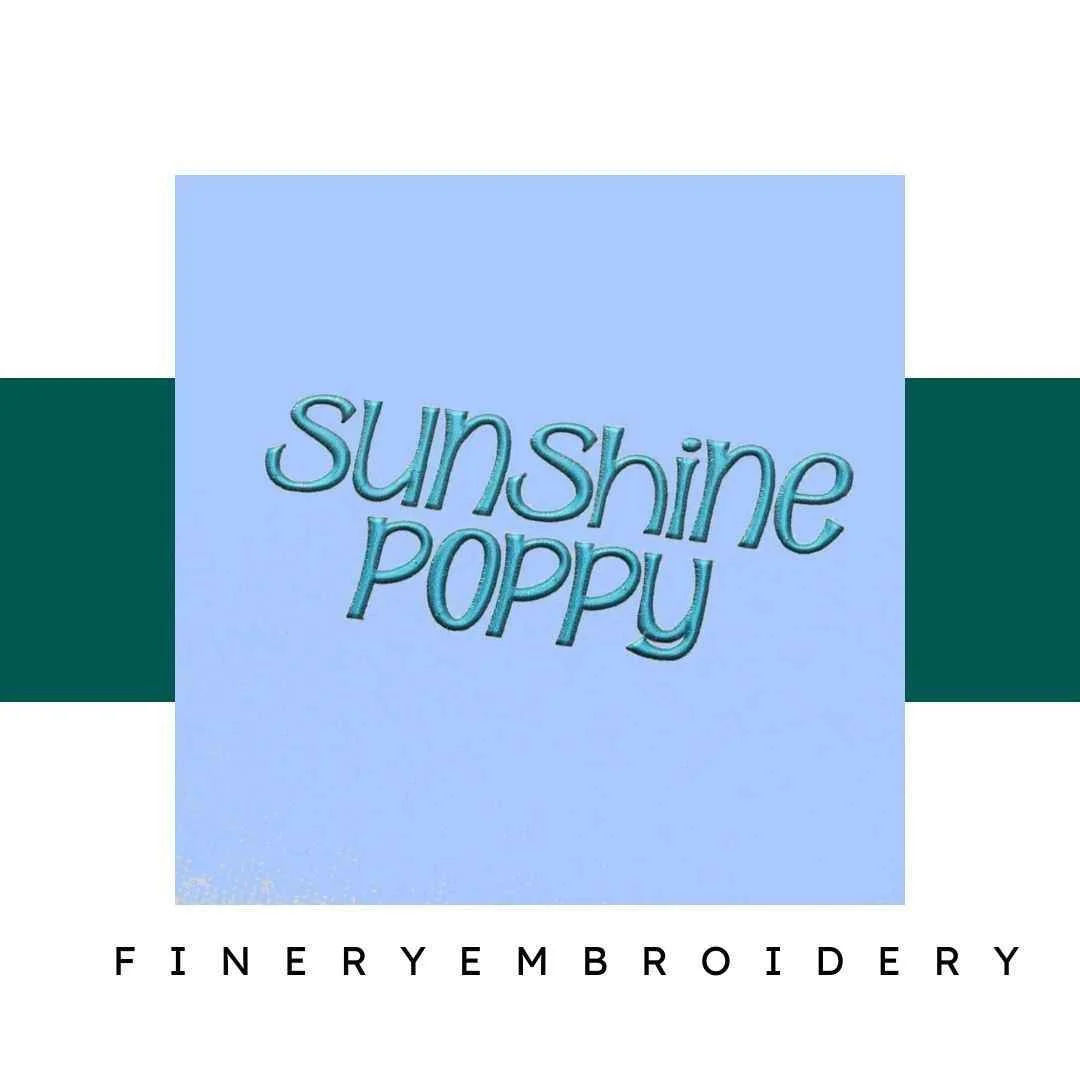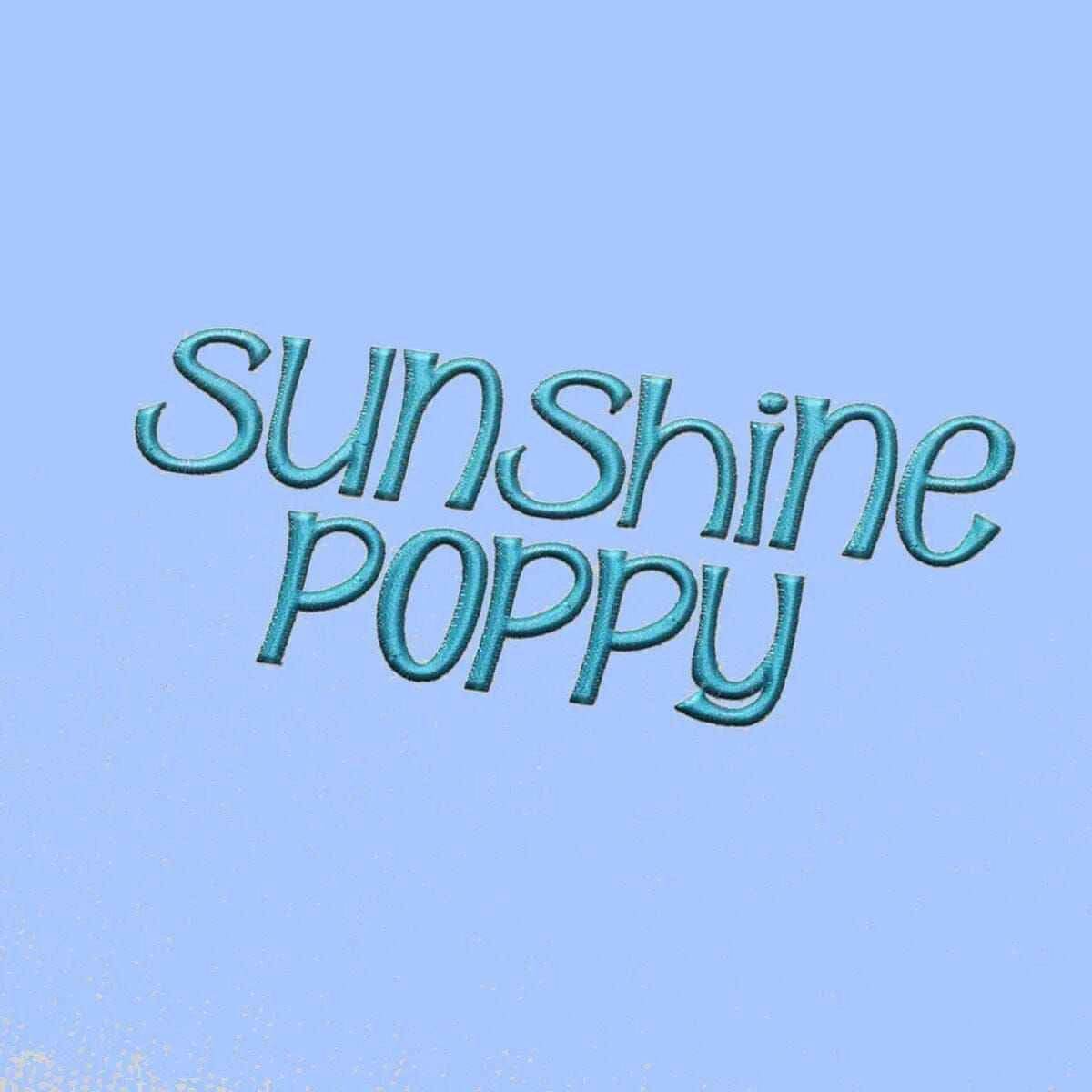
Sunshine Poppy Embroidery alphabet Font Set
Ignite your creativity with the Sunshine Poppy Embroidery Alphabet Font Set, where elegance meets functionality in every letter!
Welcome to the Sunshine Poppy Embroidery Alphabet Font Set! This exquisite collection is designed to invigorate your embroidery projects with a touch of sophistication. Each letter in this set is crafted with precision, ensuring that your creations not only look beautiful but also stand out. Whether you're an experienced embroiderer or just diving into this wonderful craft, this font set is an essential addition to your collection.
The Sunshine Poppy Alphabet Font Set is all about elegance and quality. Each letter has been intricately crafted to perfection, making it easy to personalize your projects. With a graceful style that adds a chic flair, your garments, accessories, and home décor will truly benefit from the unique touch this font set provides.
This font set opens up a world of creative possibilities! Imagine adding your child's name to a cozy blanket, or personalizing a tote bag for your next outing. The versatile designs can elevate any project, making them suitable for gifts, home décor, or even business branding. The only limit is your imagination!